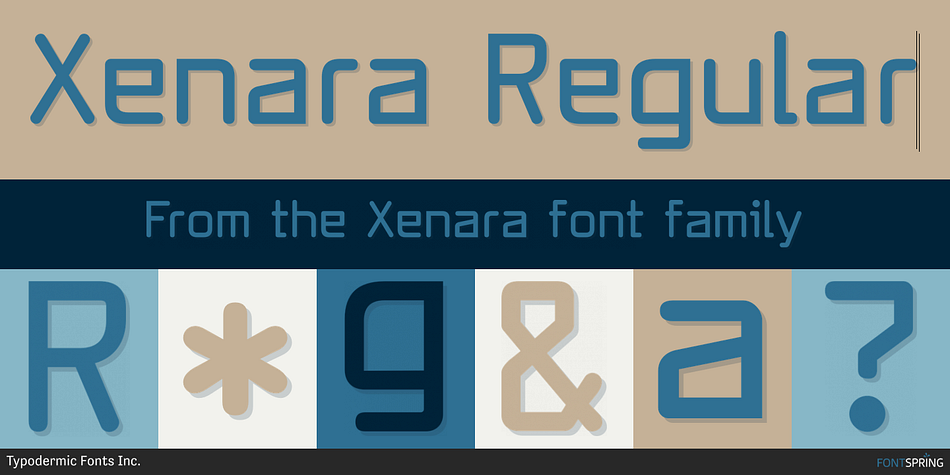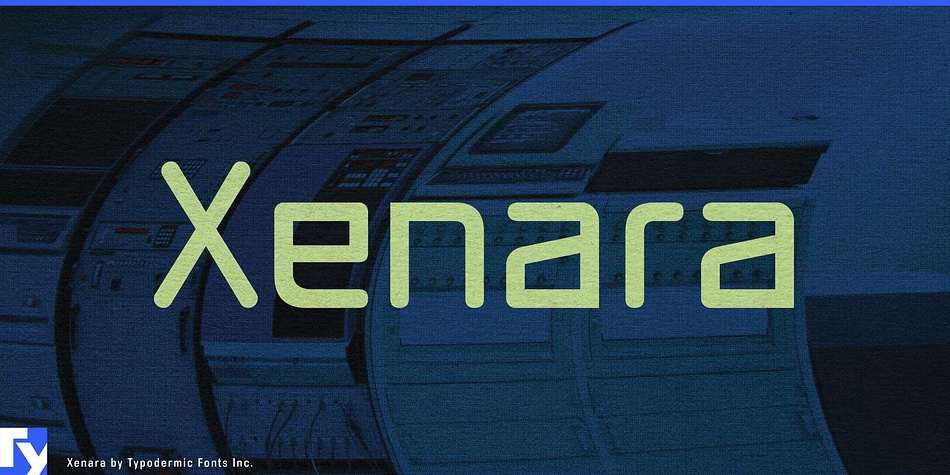
Xenara Regular
Xenara is a display and display sans font family. This typeface has four styles and was published by Typodermic Fonts Inc.
Introducing Xenara—a typeface born from the mechanical precision of vintage calculators and electric typewriters of the 1970s. Designed with technical applications in mind, Xenara features stolid letterforms and rounded ends that communicate a cold, businesslike style with scientific precision.
Xenara’s unique design elements include an alternate barless “A”, trident “M”, zigzag “E”, and square “S”, which are available when you use the OpenType alternates feature. These details add a level of technical sophistication to your work that is unmatched by other typefaces.
Available in both Regular and Bold weights, Xenara is the perfect choice for projects that require a technical look and feel. Whether you’re creating data-heavy reports, technical manuals, or scientific publications, Xenara will ensure your message is delivered with the utmost precision.
Choose Xenara for a typeface that speaks to the essence of science and technology with a timeless design that will endure for years to come.